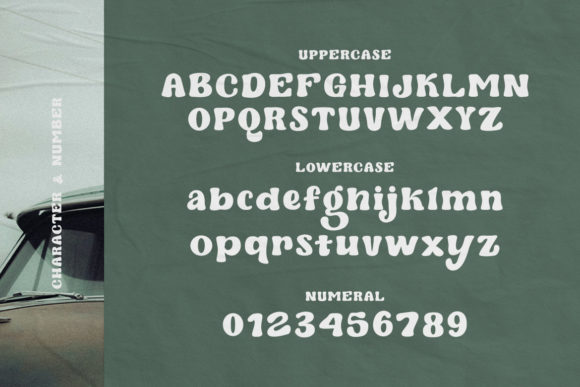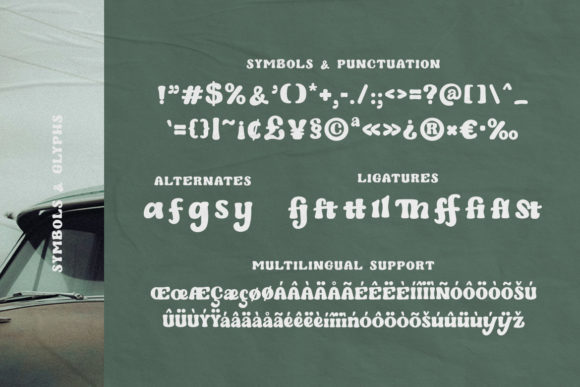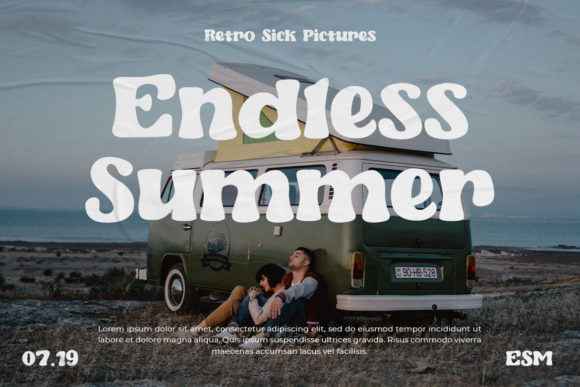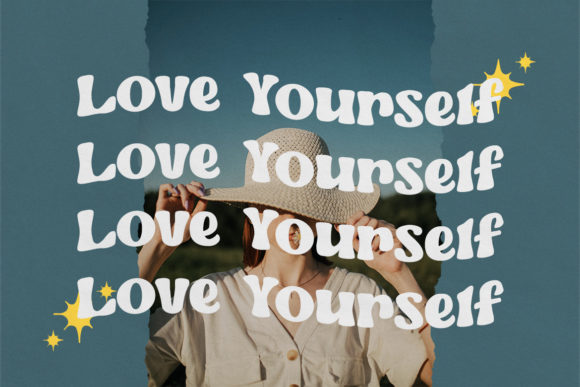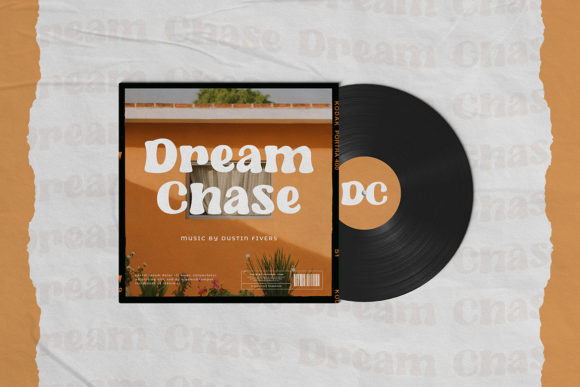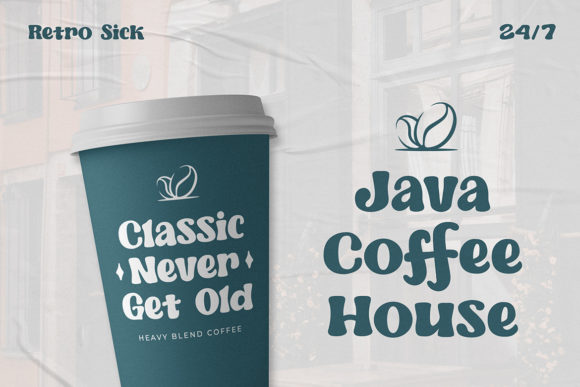
Introduction to Retro Sick Font
Retro Sick is a bold serif typeface that will give a retro aesthetic to any creative project you add it to.
Its unique characteristics set it apart from all the other serif fonts This font is very suitable for a wide range of creations that require a distinct touch.
Key Features of Retro Sick Font